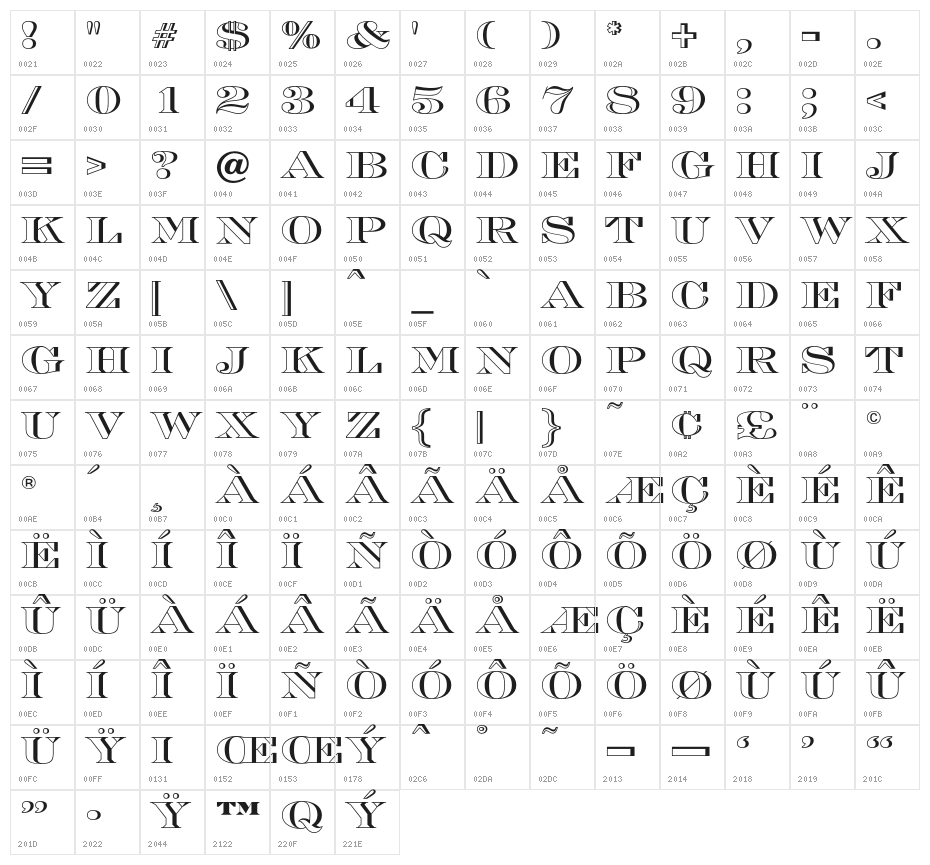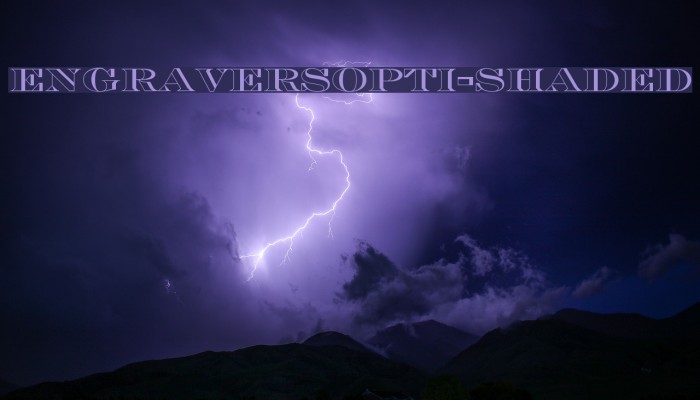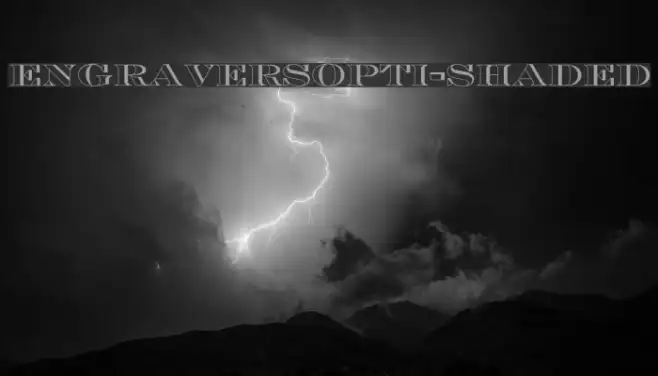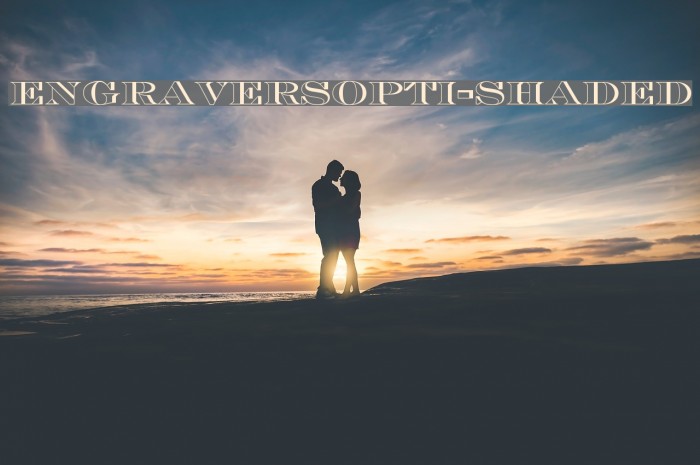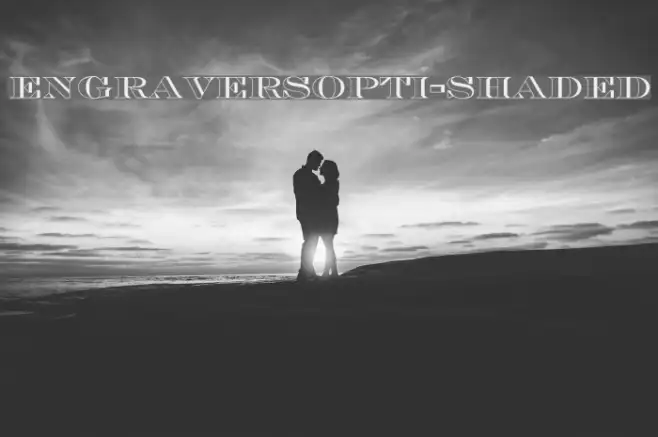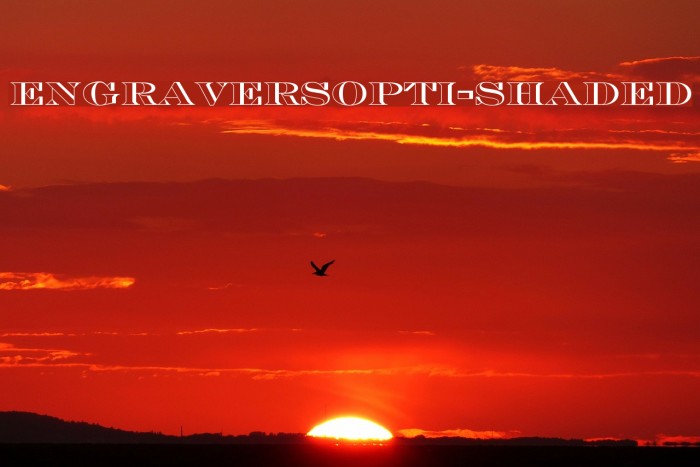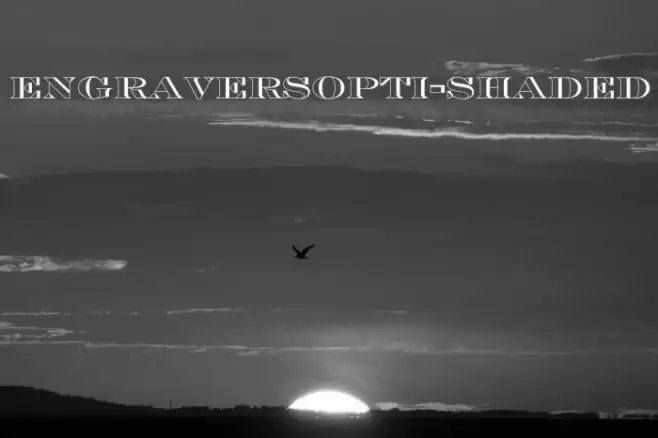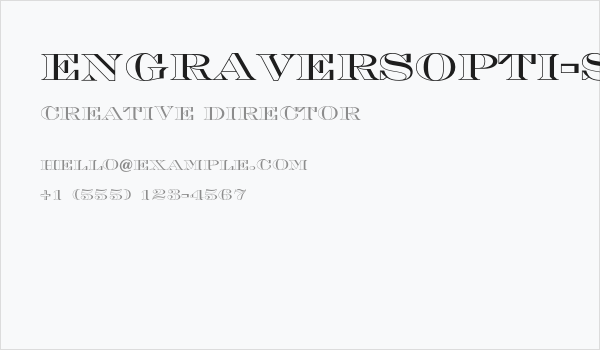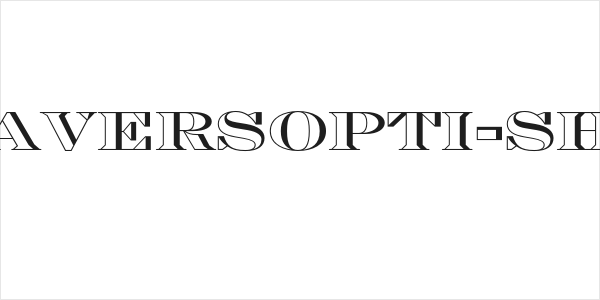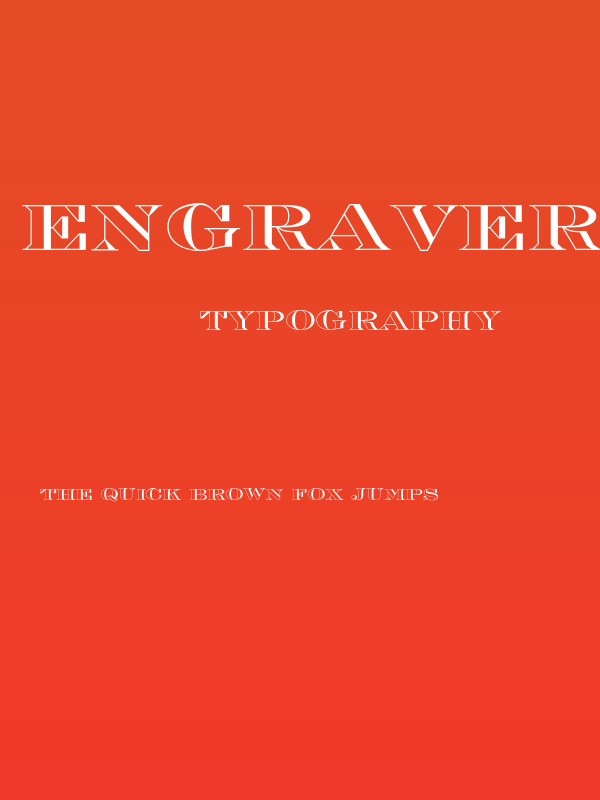
EngraversOpti-Shaded Font
EngraversOpti-Shaded Description
This font features a classic serif style with a unique shaded effect that gives it a three-dimensional appearance. The letters are bold and well-defined, with sharp serifs that add a touch of elegance and sophistication. The uppercase letters are particularly striking, with their strong presence and intricate detailing. The numbers and special characters maintain the same level of detail, ensuring consistency across all glyphs. This font is ideal for projects that require a touch of formality and tradition, yet with a modern twist due to its shaded design.
| Proposed Projects | Ideal for formal invitations, certificates, branding, and editorial design. |